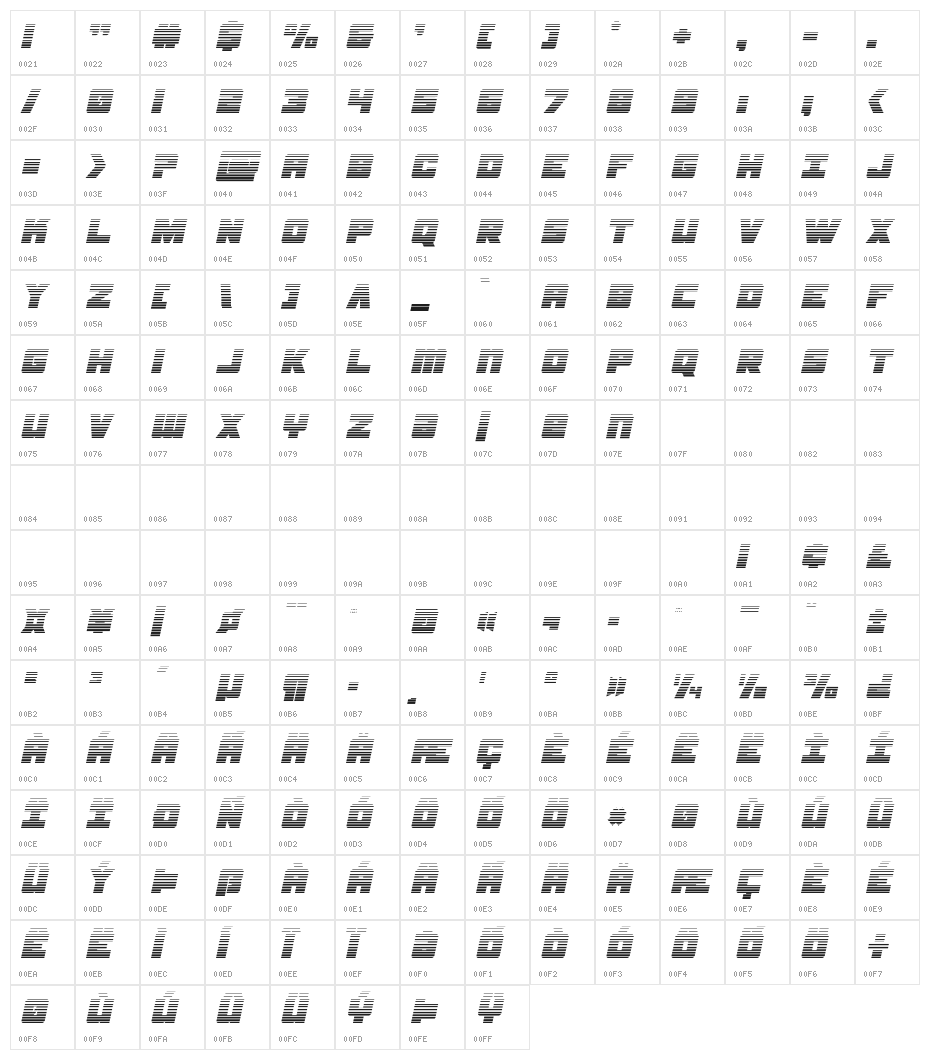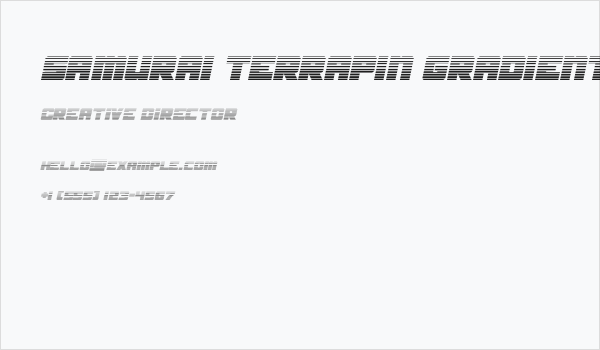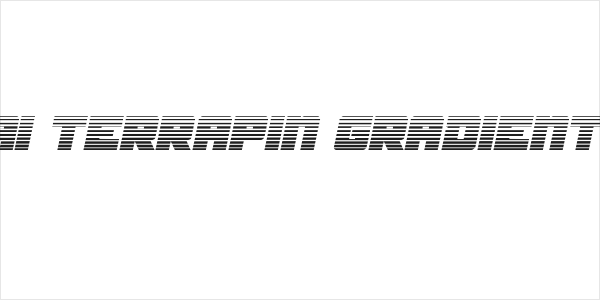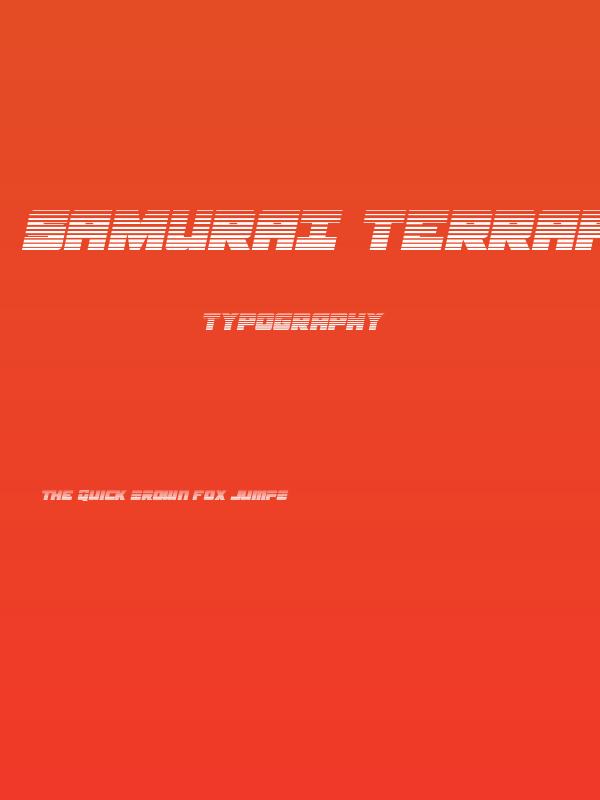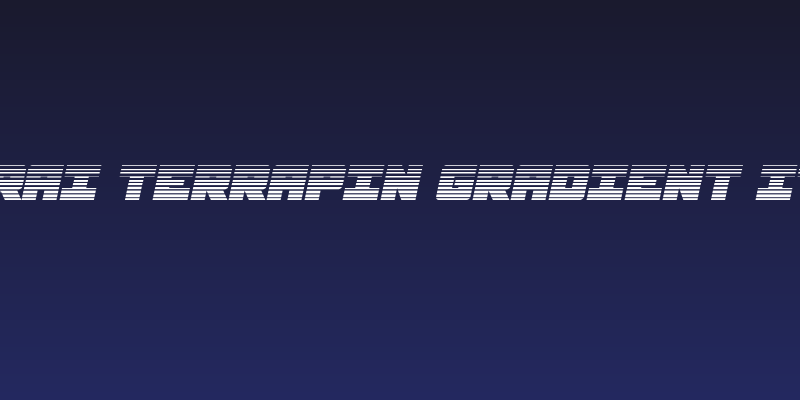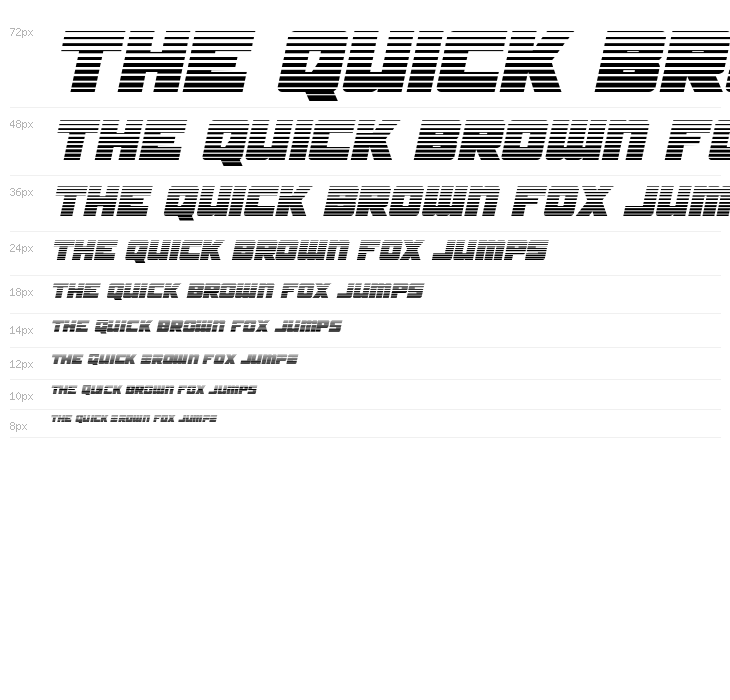
Samurai Terrapin Gradient Italic Font
Samurai Terrapin Gradient Italic Description
This font features a bold, futuristic design with a distinct gradient effect that gives it a dynamic and energetic appearance. The characters are italicized, adding a sense of motion and speed. Each letter is composed of horizontal lines that create a striped pattern, enhancing the modern and edgy look. The font maintains a consistent width across all characters, ensuring uniformity and balance. Its unique style makes it ideal for projects that require a standout, eye-catching typeface.
| Overall Style | Futuristic, Dynamic |
| Proposed Projects | Ideal for sports branding, video game titles, sci-fi movie posters, and dynamic logo designs. |